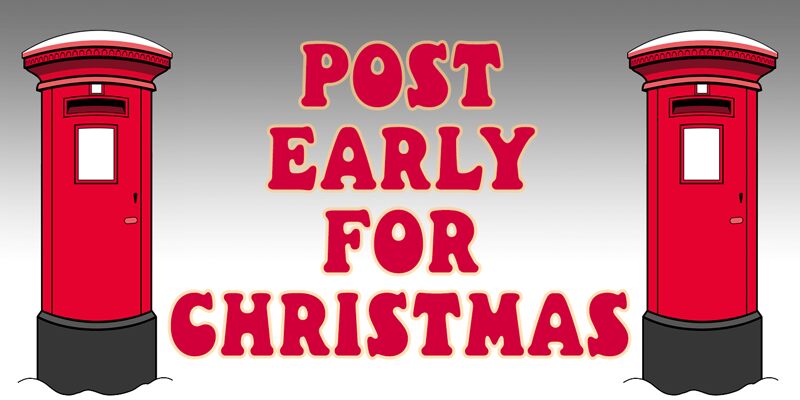
Christmas Pudding is a small caps fonts based on label lettering from a Christmas Pudding produced by the London Transport Food Production Centre, circa 1970.
Christmas Pudding by Keith Bates " © 2022 www.k-type.com " Christmas Pudding is based on the label lettering from a London Transport Christmas Pudding circa 1970.
Christmas Pudding is based on the label lettering from a London Transport Christmas Pudding circa 1970.